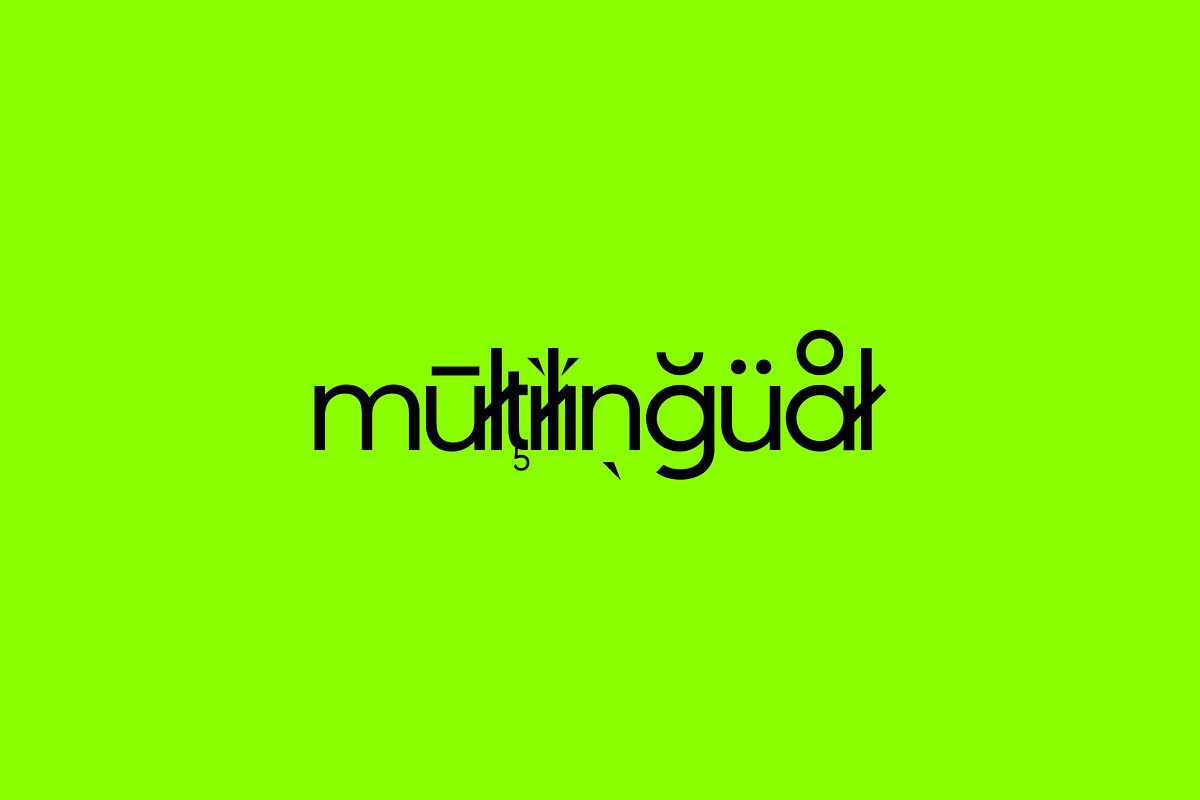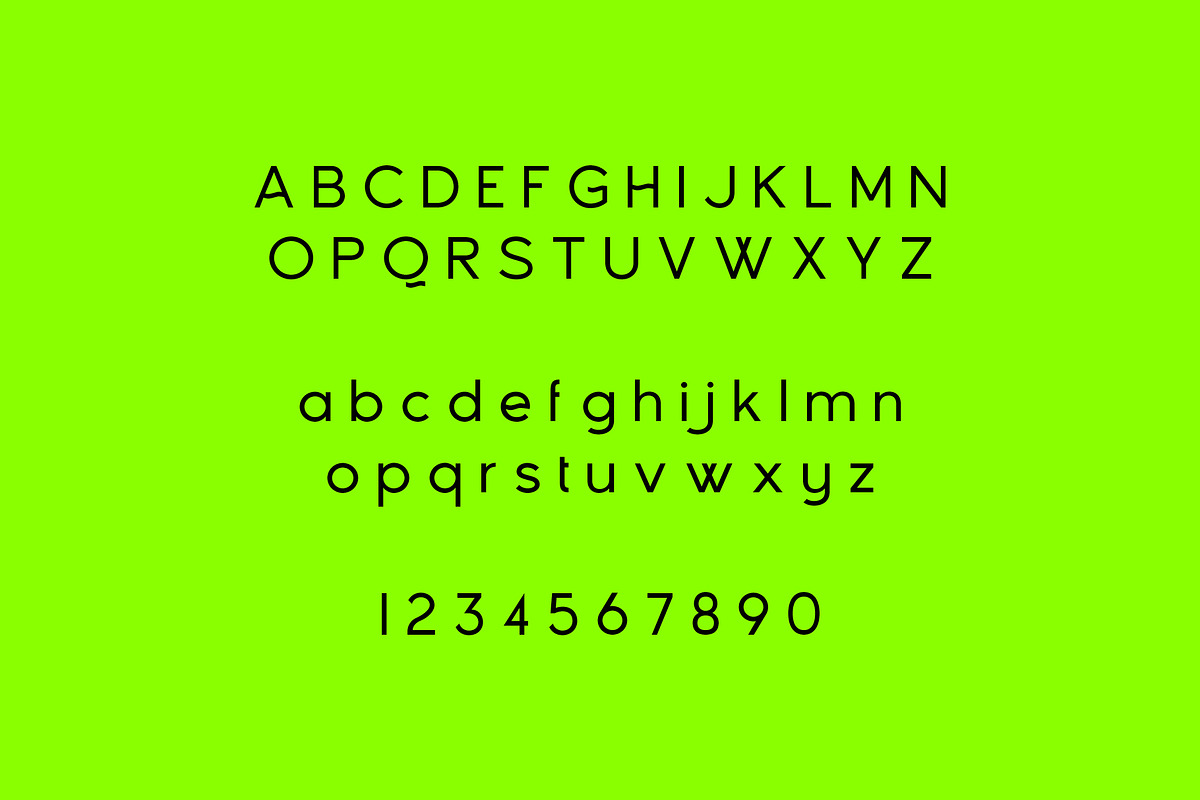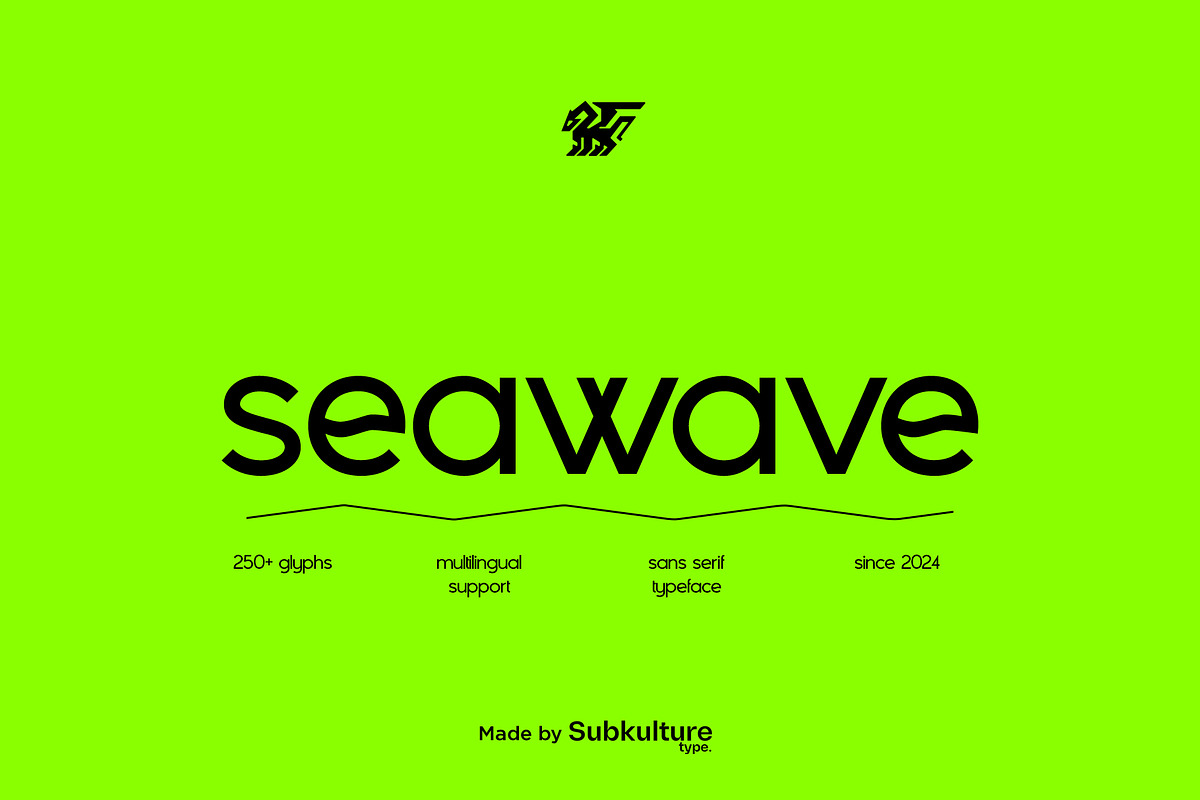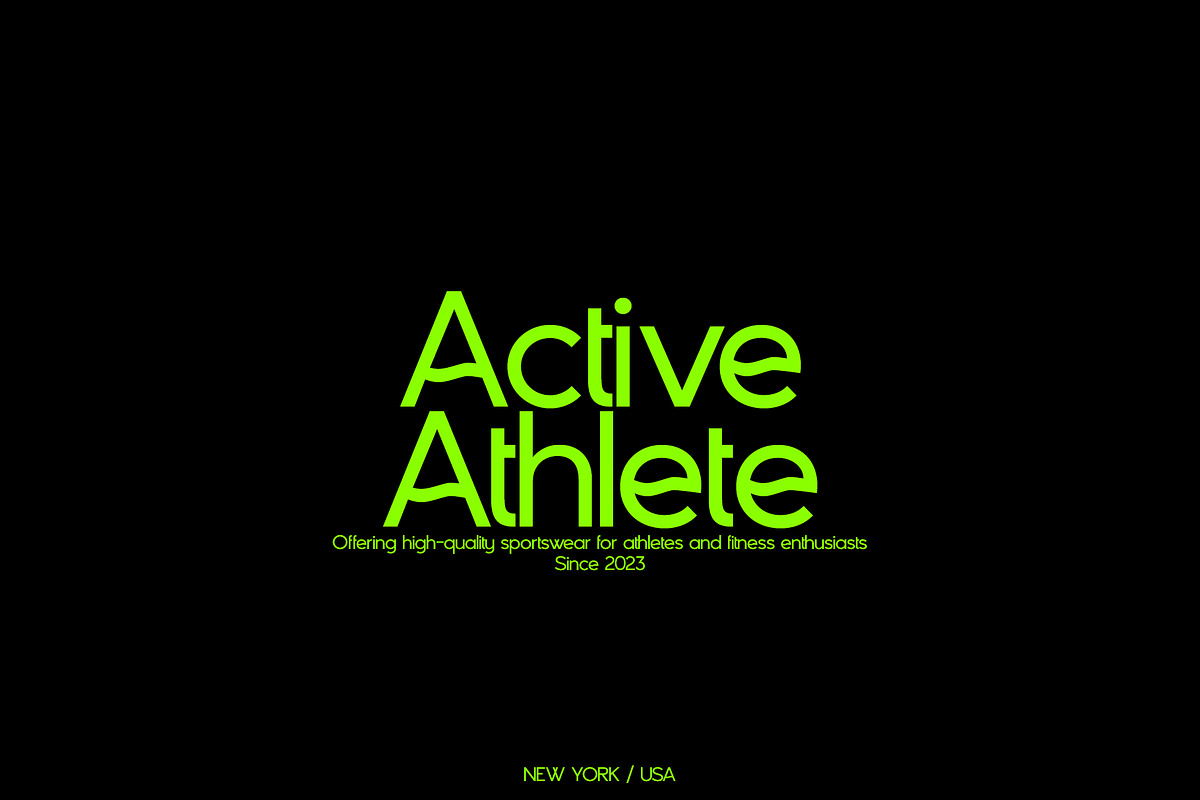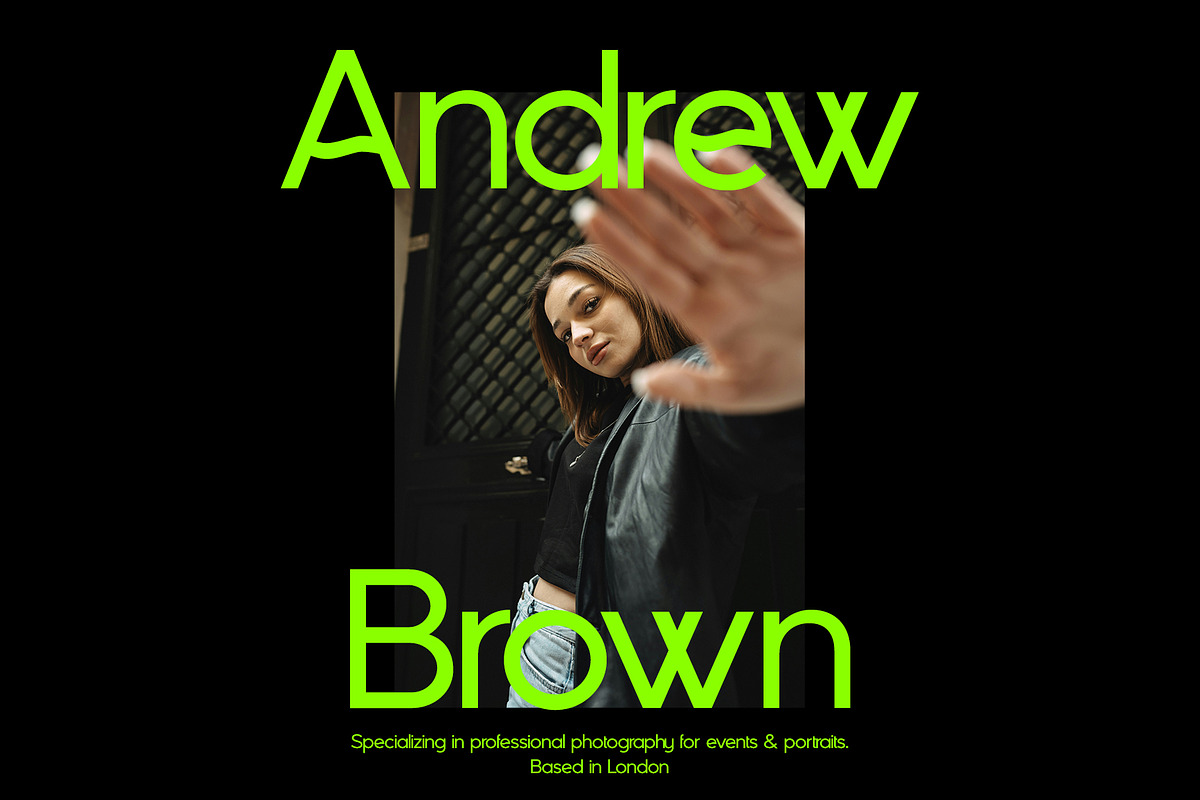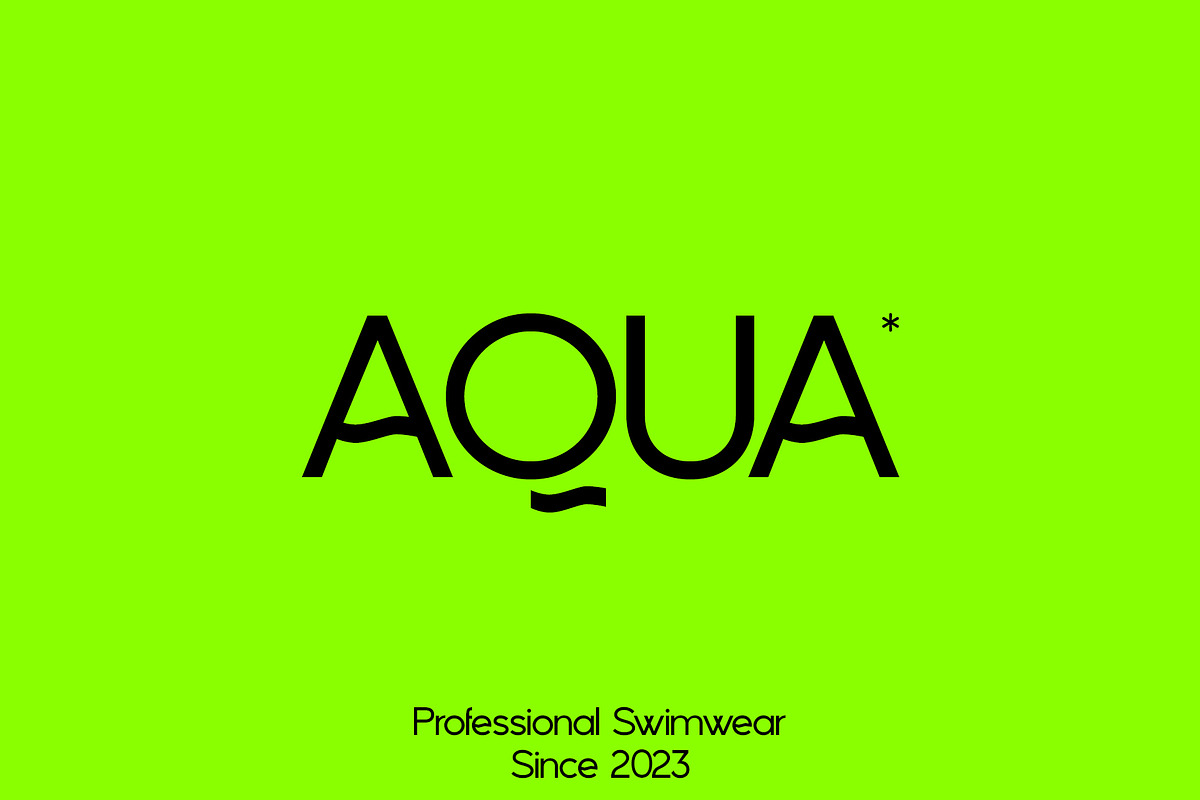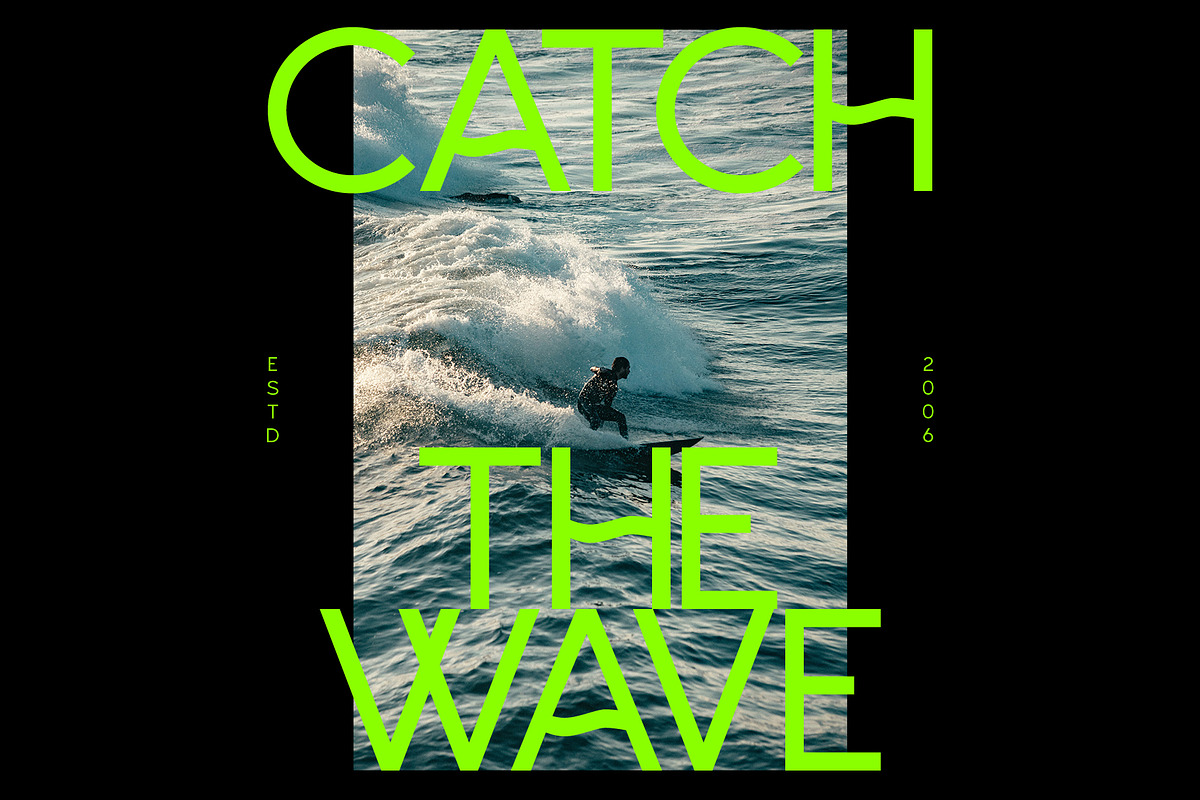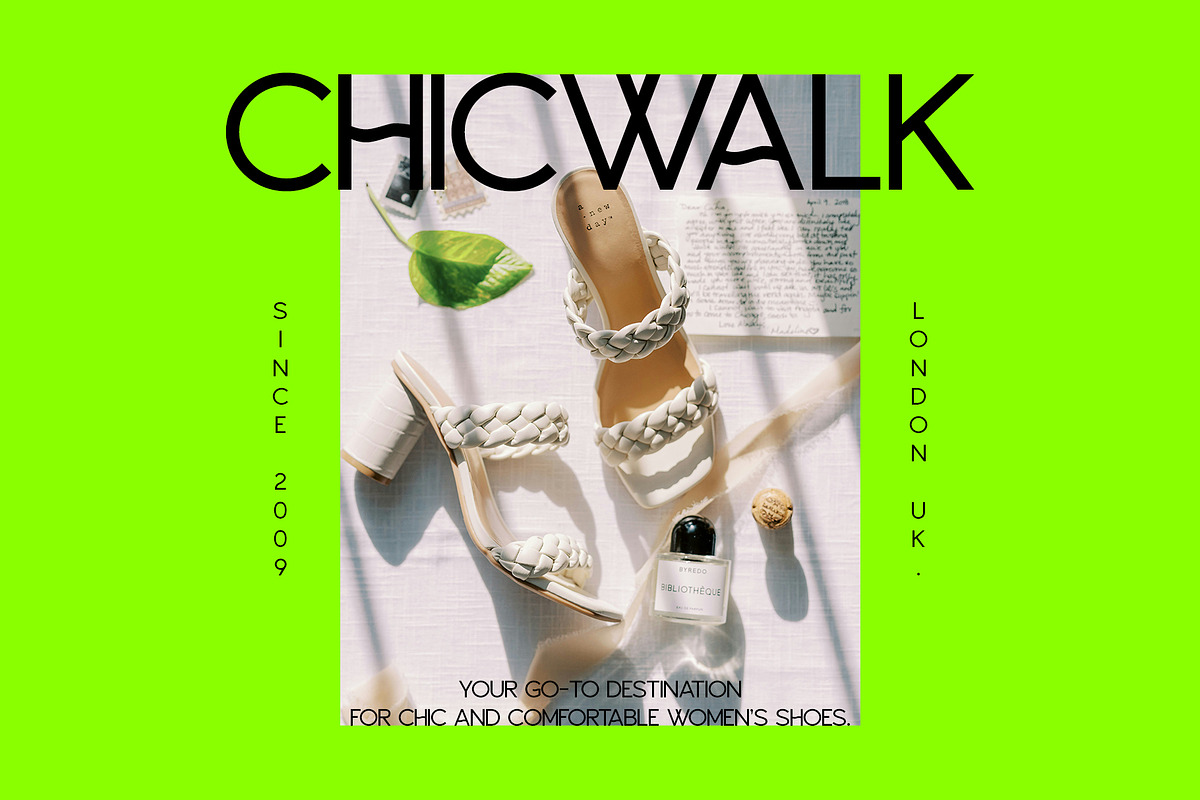
Seawave - Unique Sans Serif
Seawave is a unique sans serif font inspired by the fluidity and movement of ocean waves. Its sleek design and clean lines evoke a sense of tranquility and elegance, making it a perfect choice for projects that require a touch of aquatic inspiration. Whether used for branding, editorial design, or any other creative endeavor, Seawave brings a refreshing and dynamic element to any project.
Seawave features uppercase & lowercase letters, numbers & symbols, multilingual support, over 250+ glyphs.